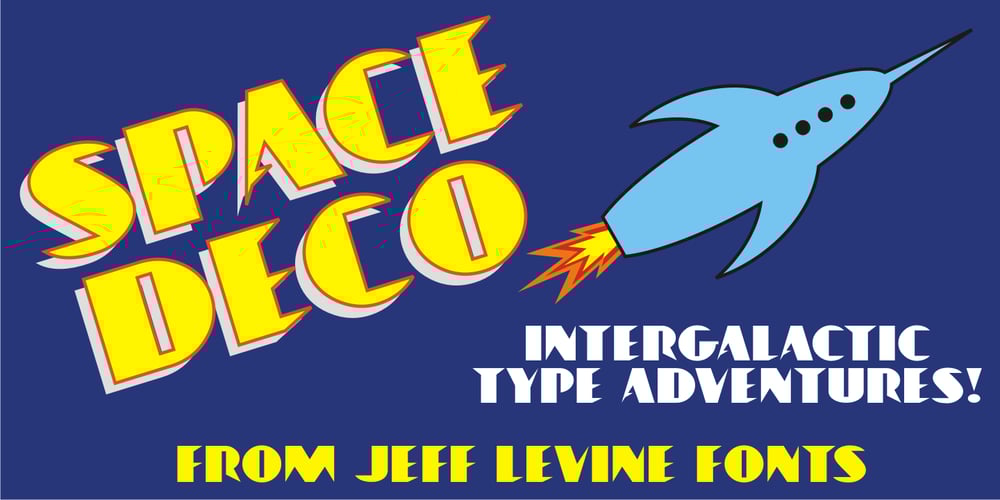
Space Deco JNL Font Family was designed by Jeff Levine and published by Jeff Levine. Space Deco JNL contains 1 styles and family package options. Hand lettering used on the packaging of a space-themed rubber stamp toy set is the basis for Space Deco JNL. Blending the classic thick-and-thin line weights of the Art Deco style with sharply angled cross strokes evoked a sense of movement and “future” in this unique lettering design.